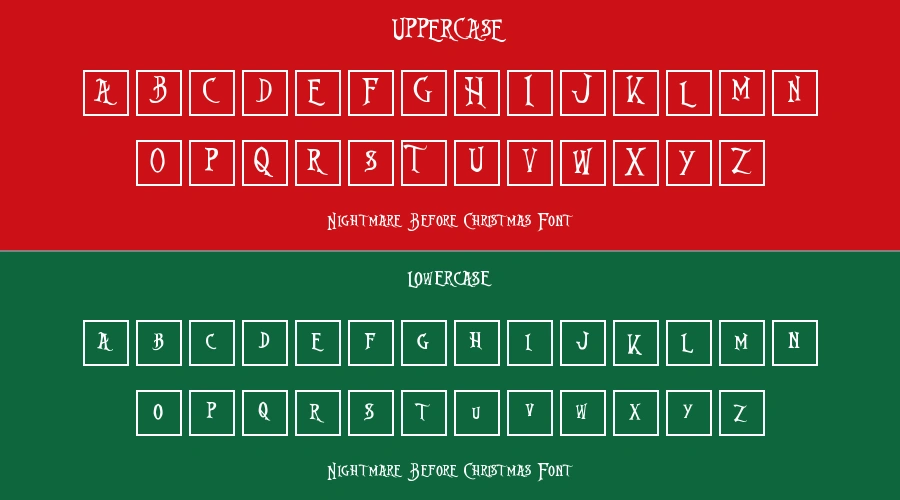
About Nightmare Before Christmas Font
Nightmare Before Christmas Font stands out for its distinctive combination of calligraphic influence and signature style. Ideal for engineering drawings, it provides the memorability and design innovation that professional projects demand. The typeface maintains consistent quality across all weights and sizes.
Key features include refined sharp edges and practical decorative sets, enhancing typographic expression. In featured quotes applications, Nightmare Before Christmas Font demonstrates exceptional multi-language support. The aperture size and institutional trust contribute to its distinctive character and professional appeal.